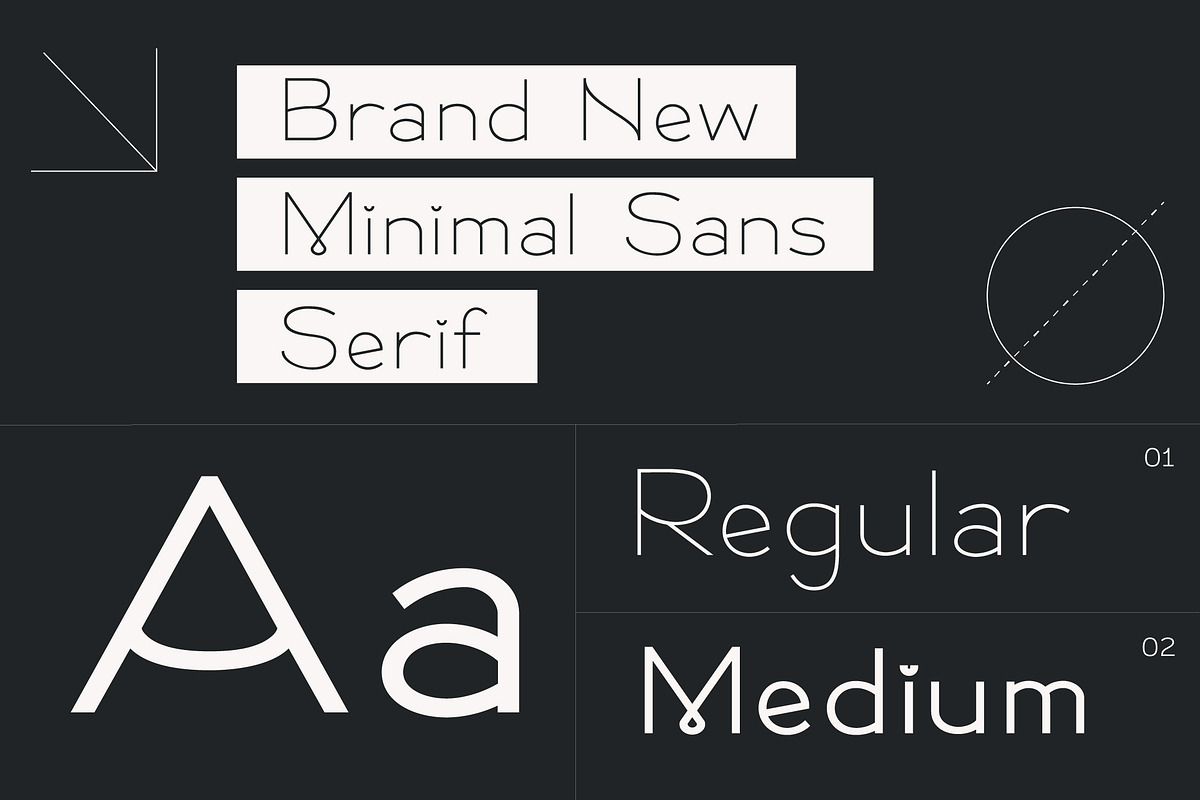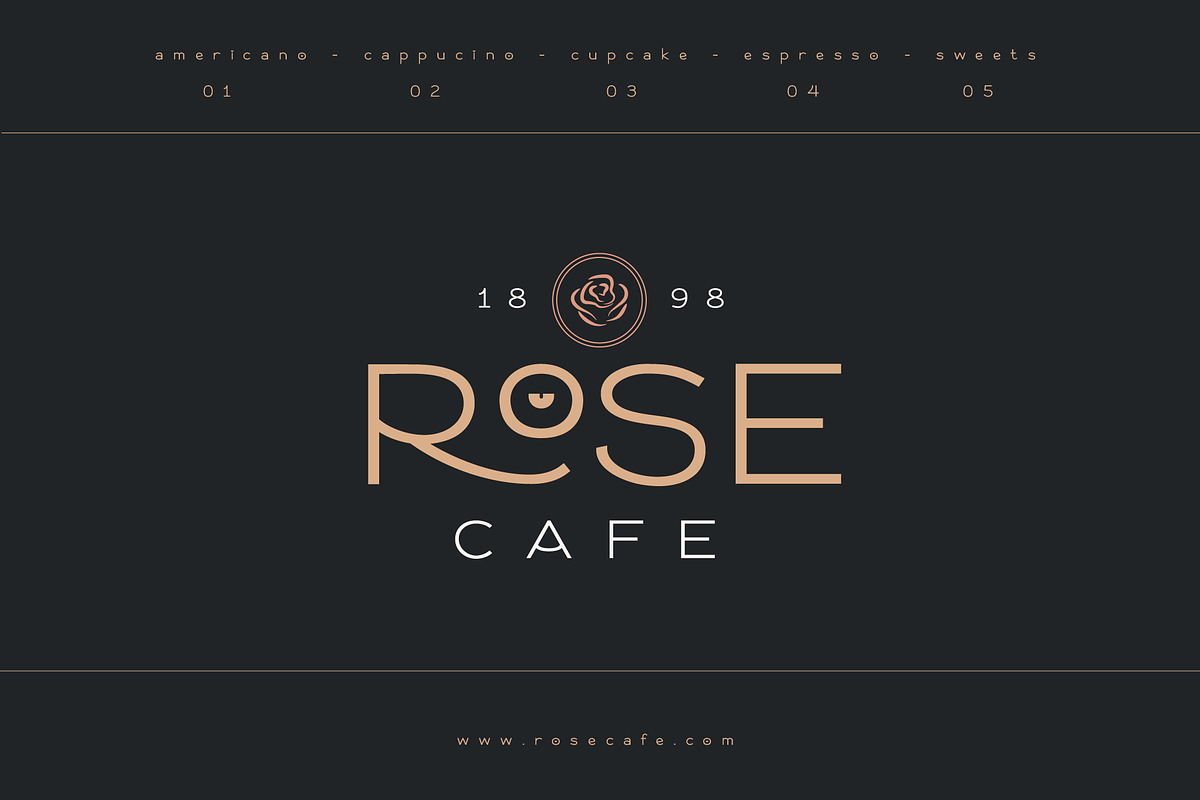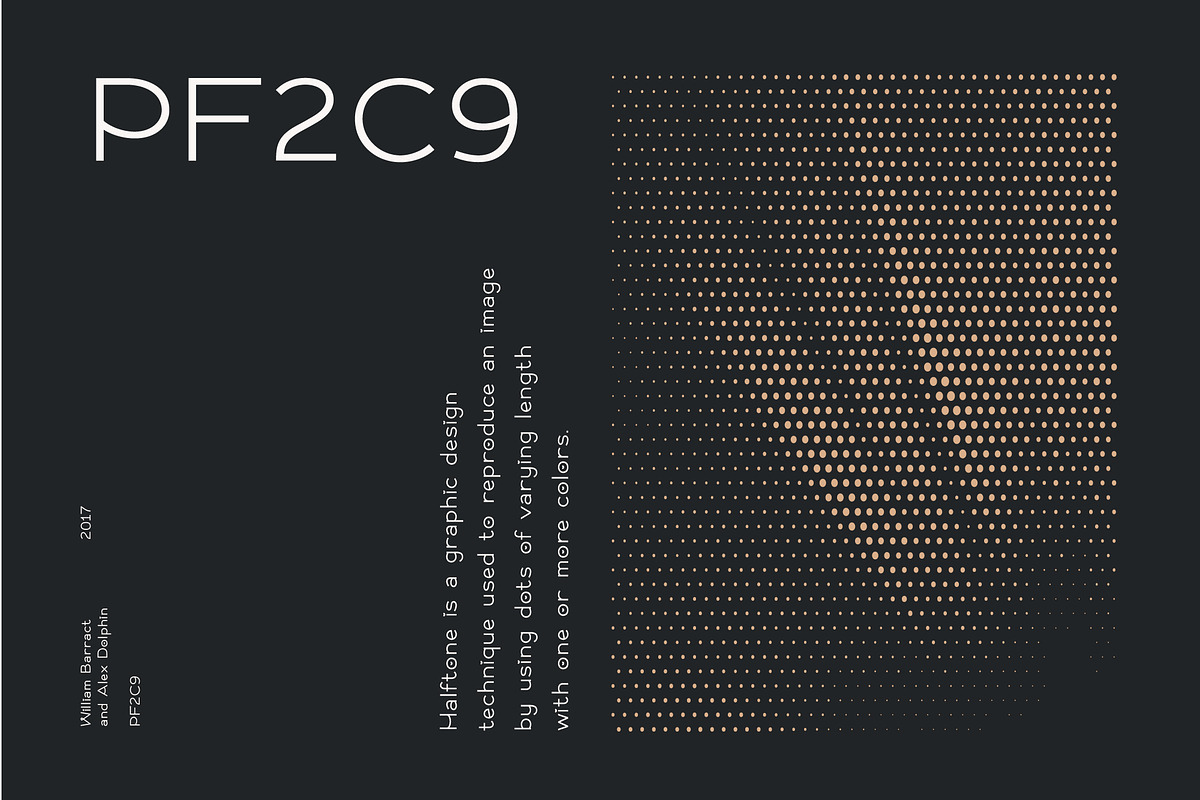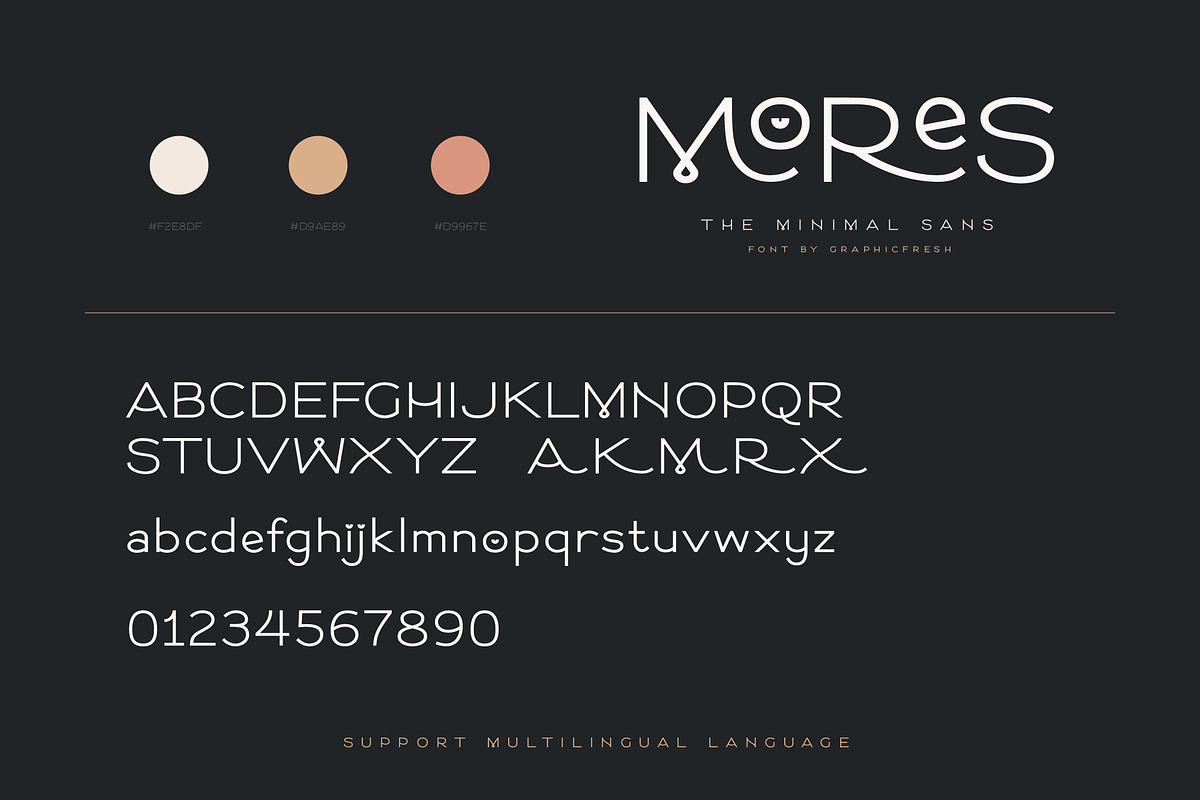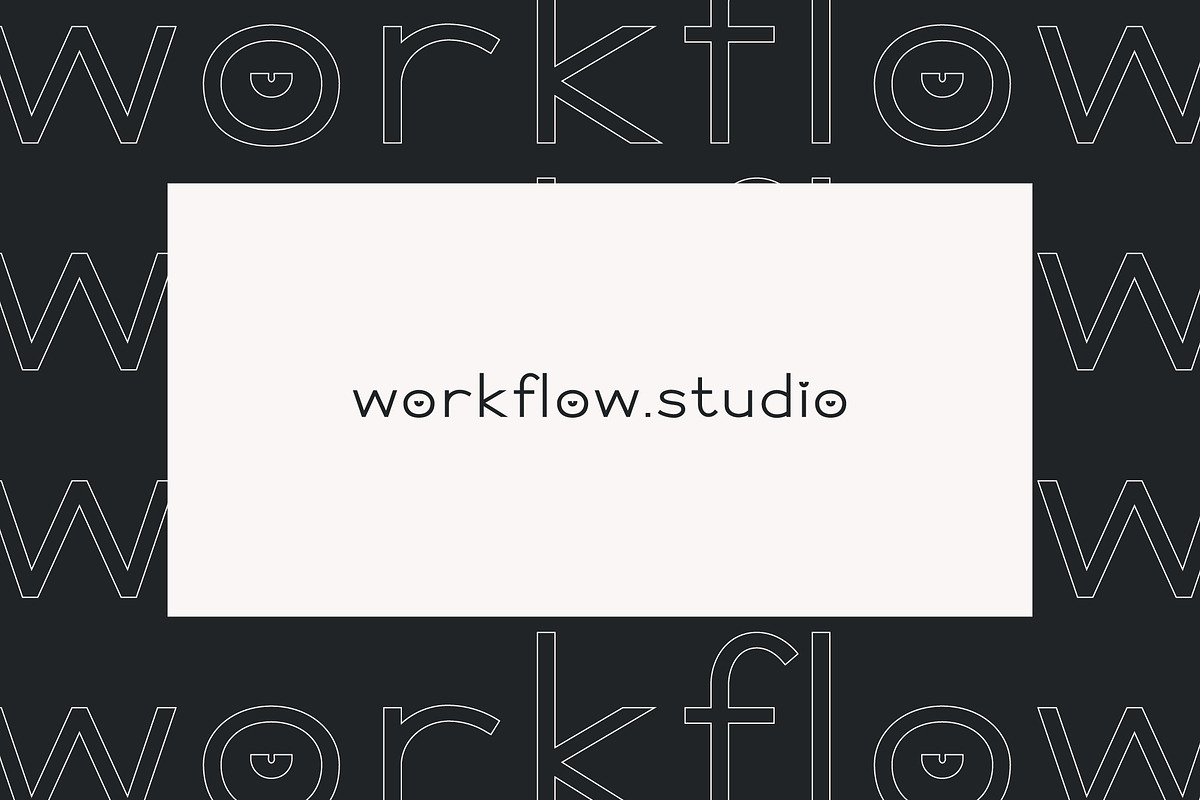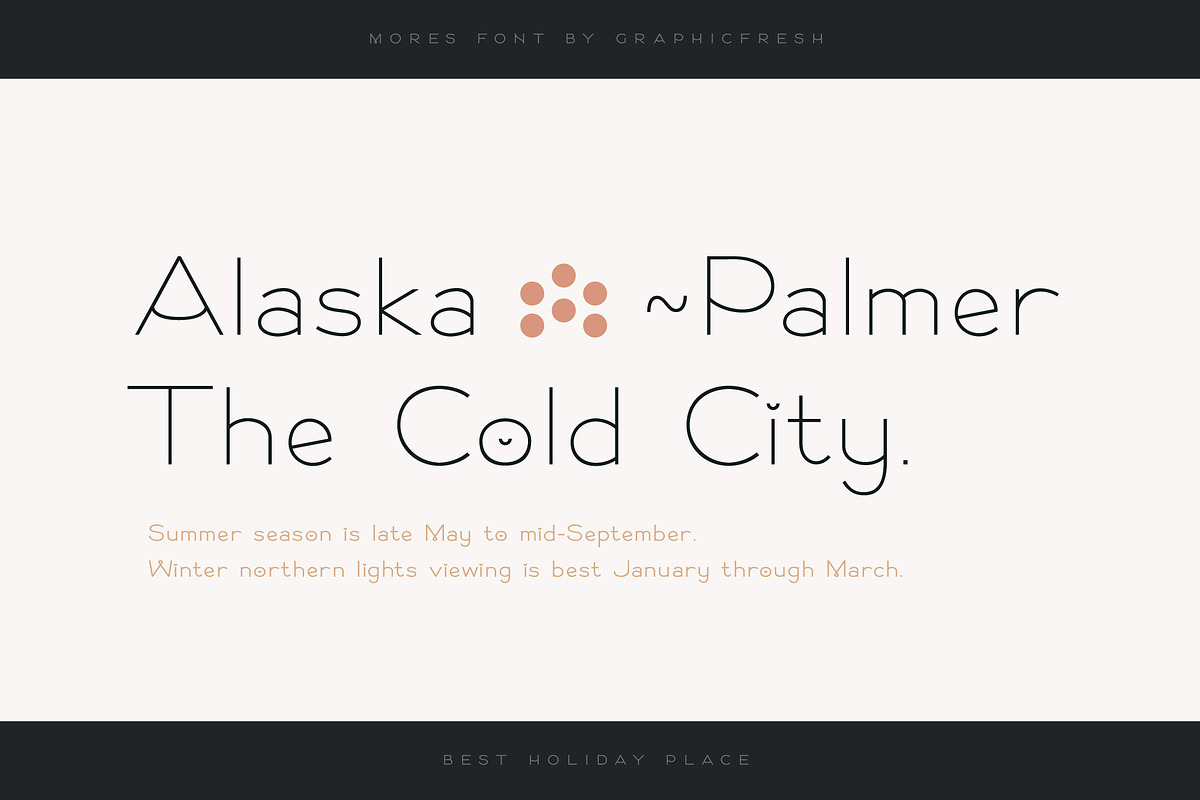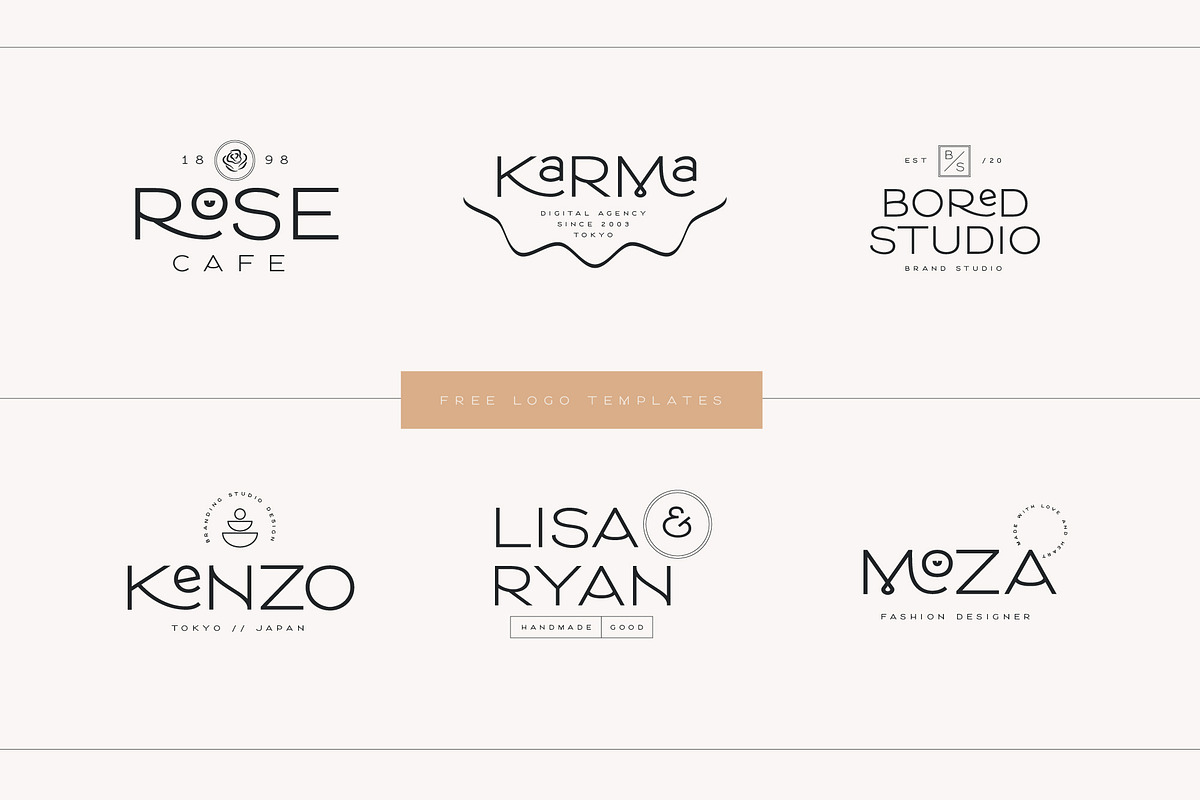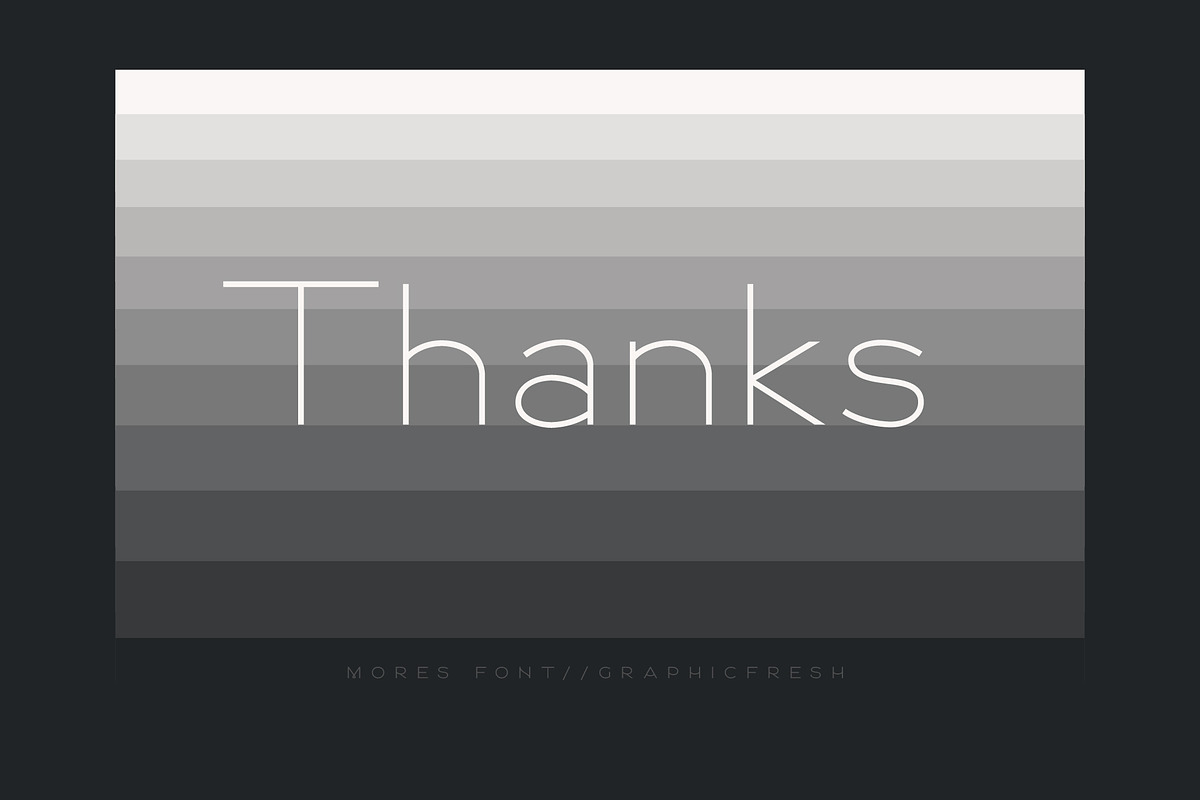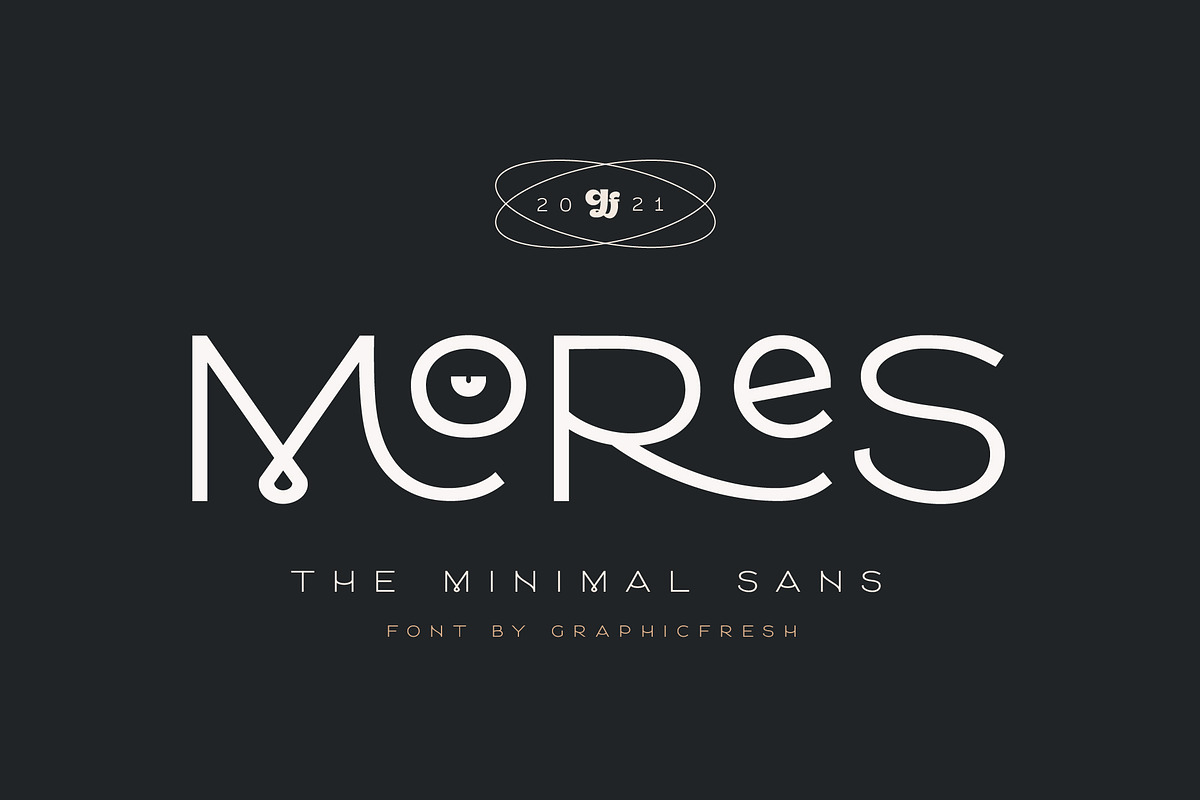
GF | Mores - Minimal Sans + Bonus
Mores - Minimal Sans + Bonus 6 Logo Templates
Introducing a minimalist style font. Fonts that are suitable for branding, packaging, logos and others. This font comes in regular and medium formats. Including italics in it. If you like this font, don't forget to collect it and share it with your loved ones.